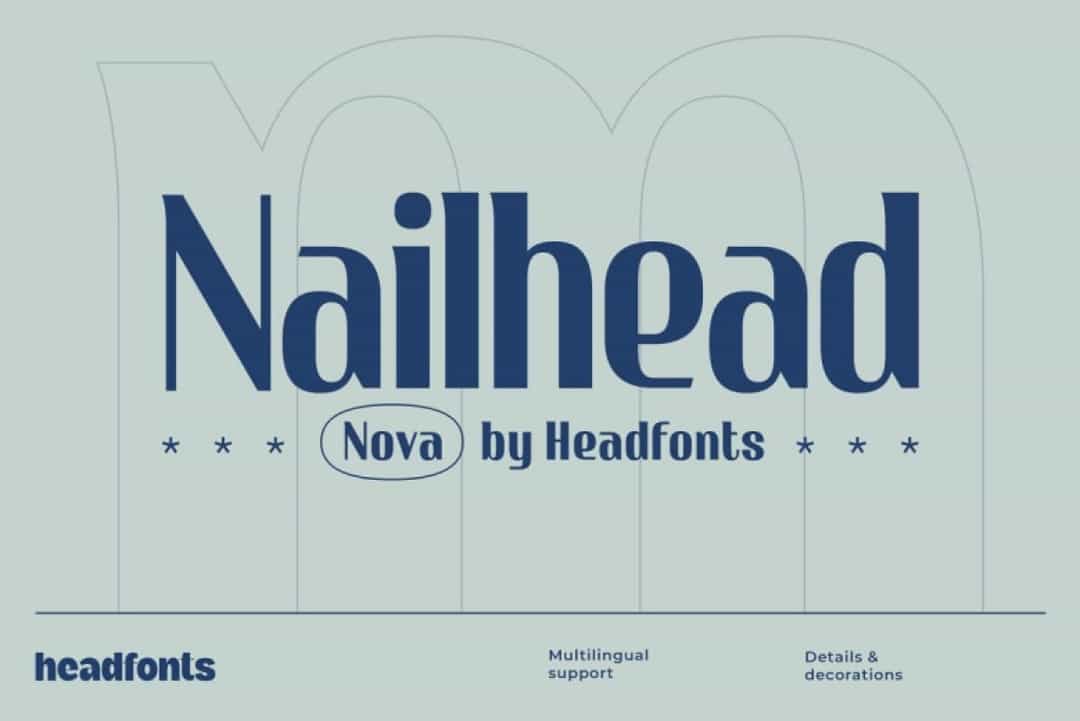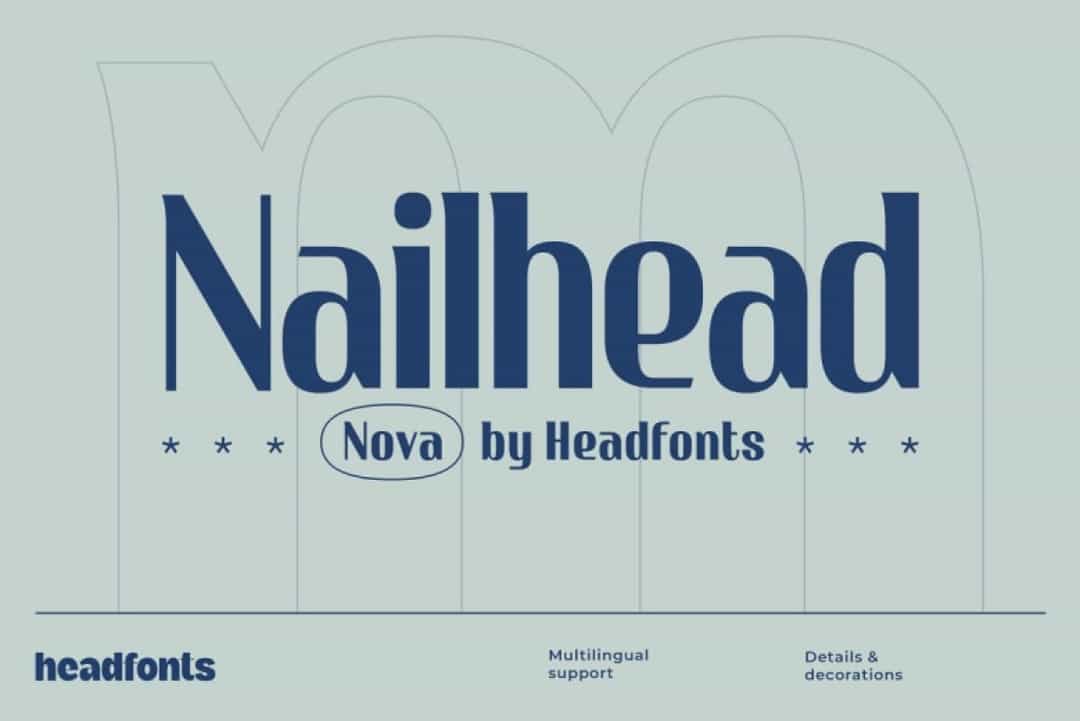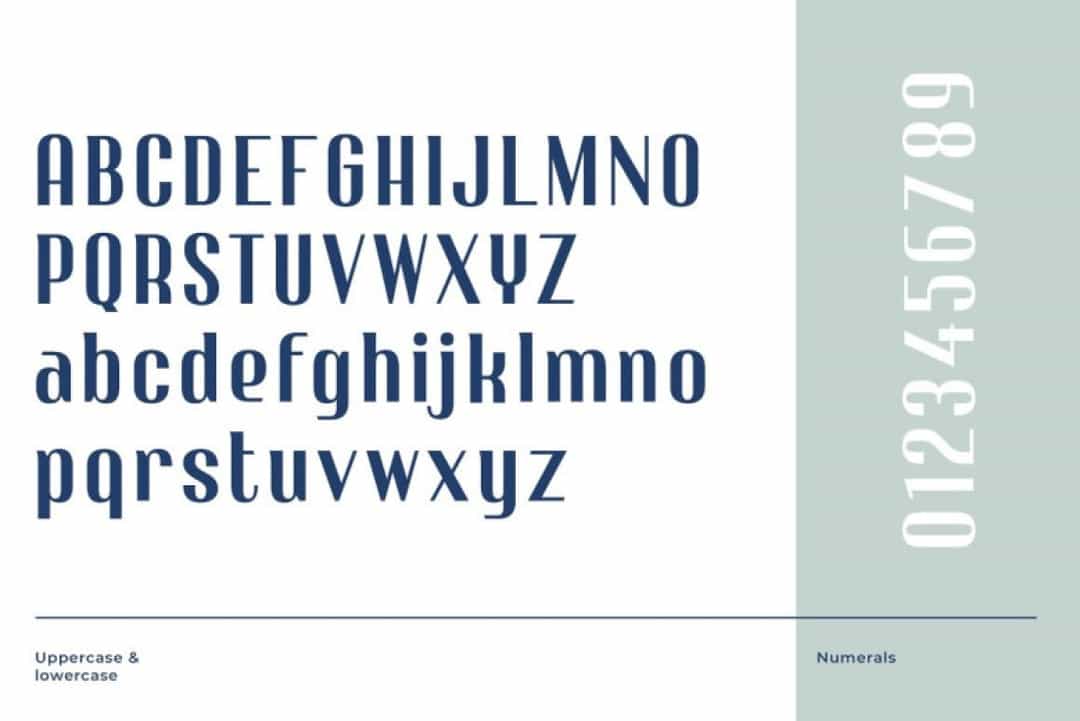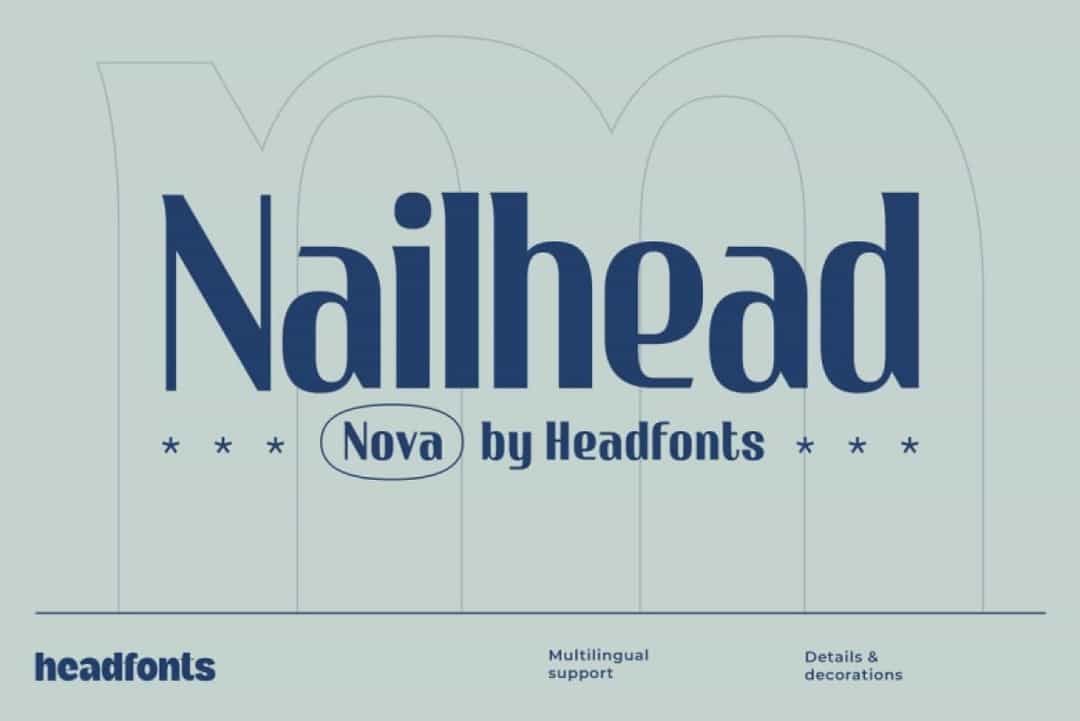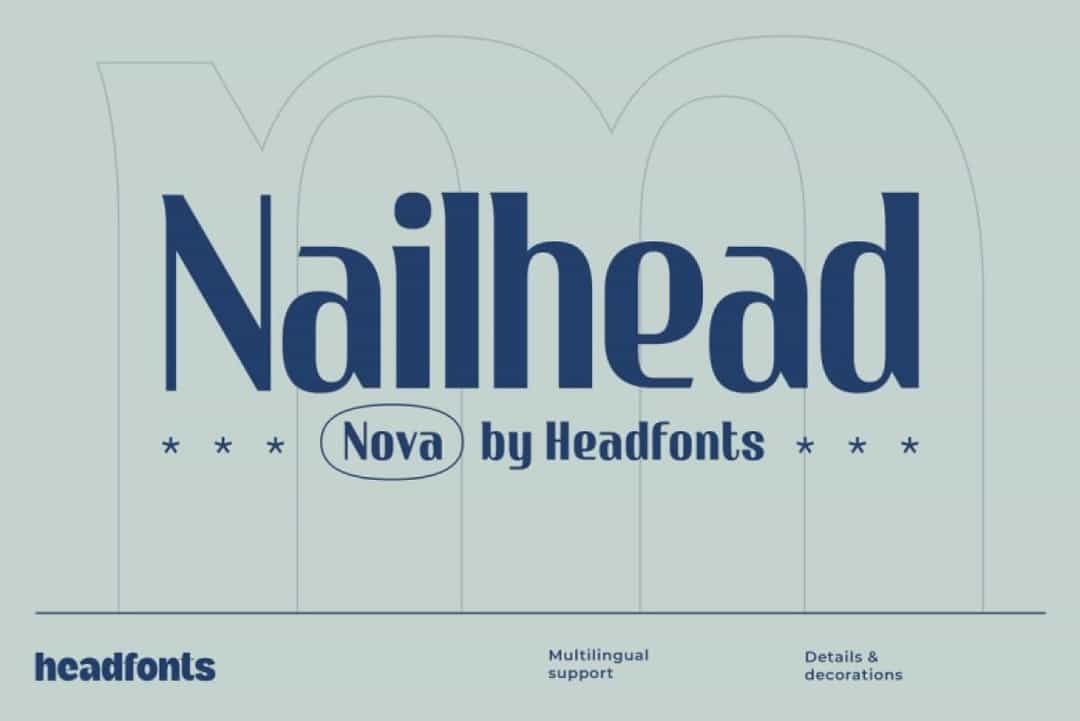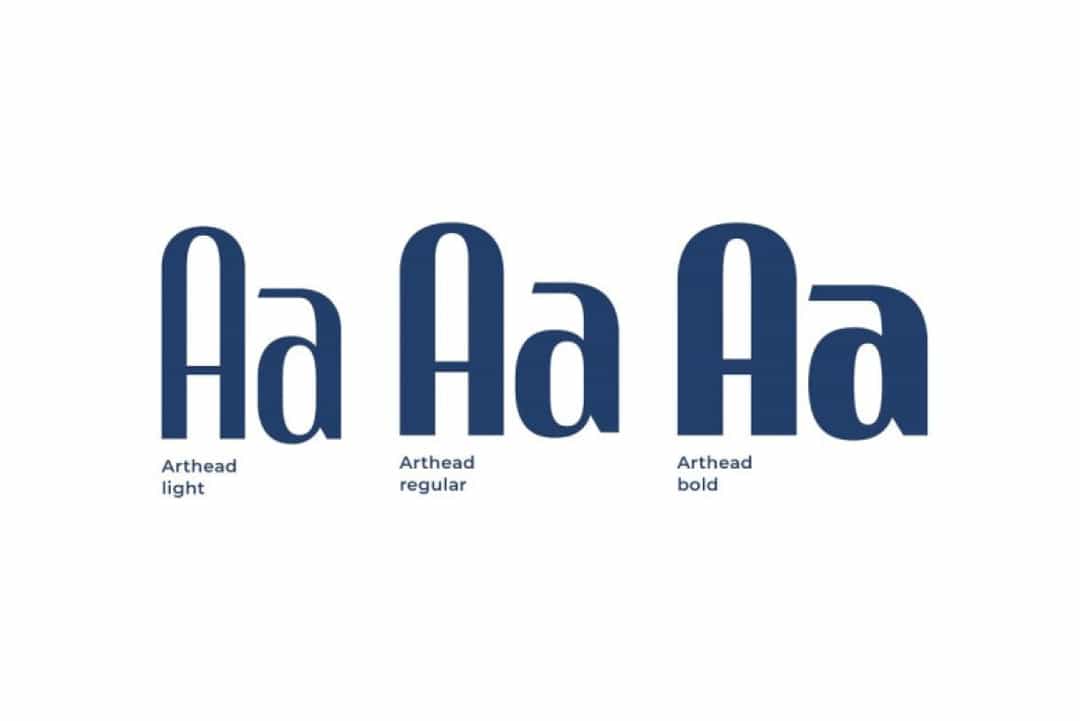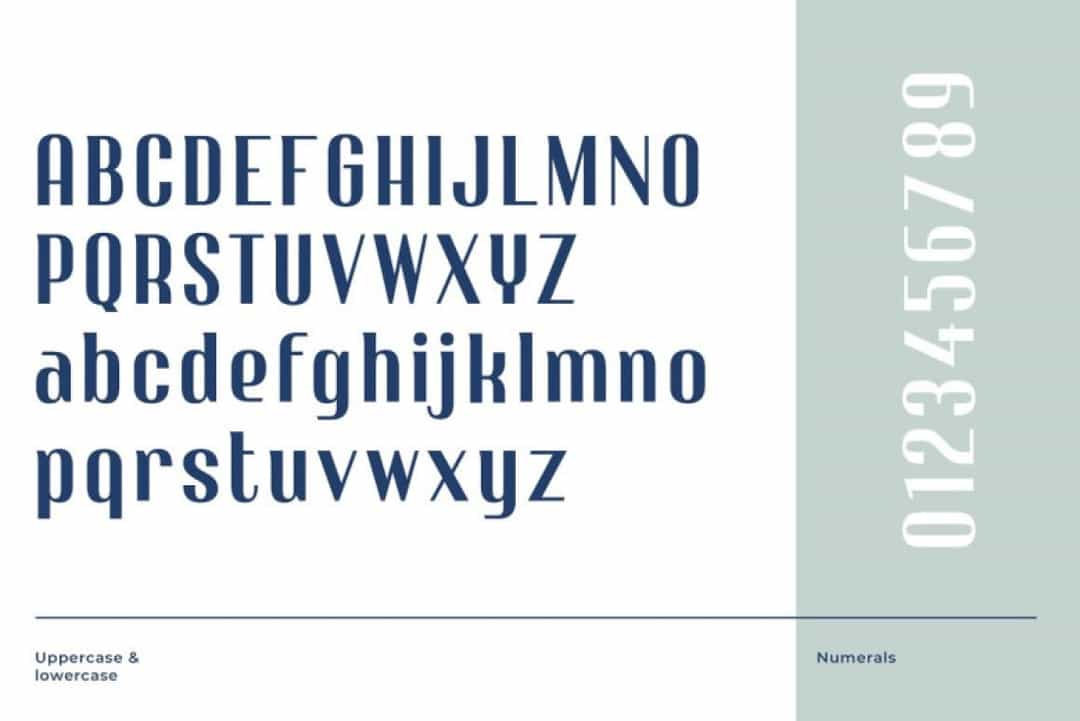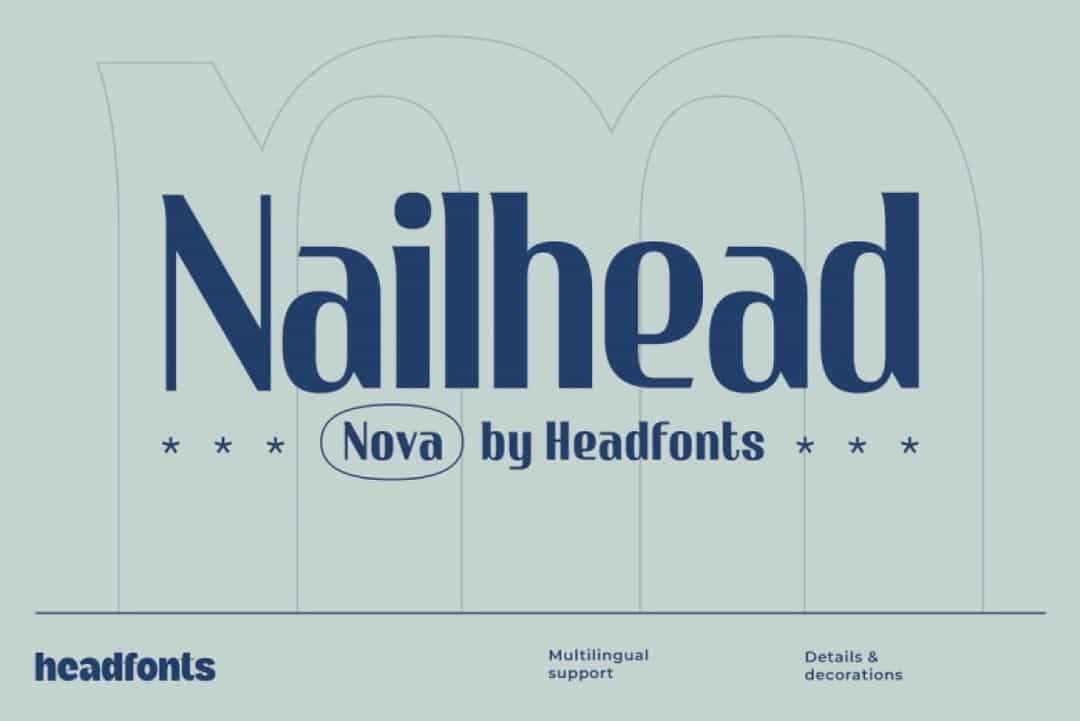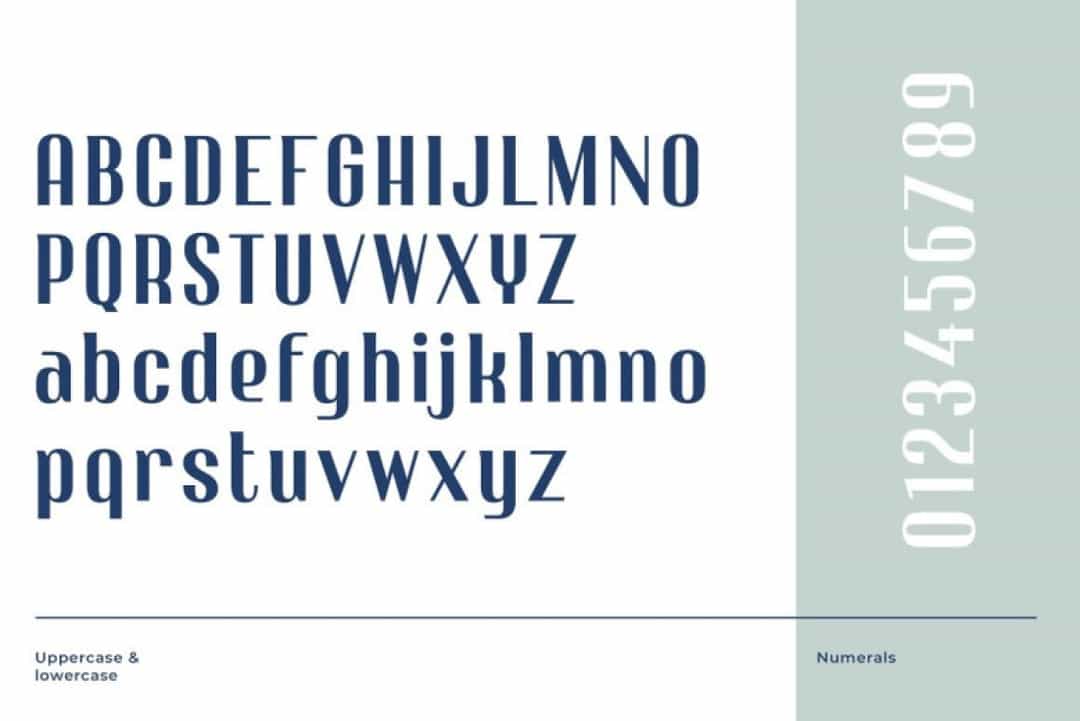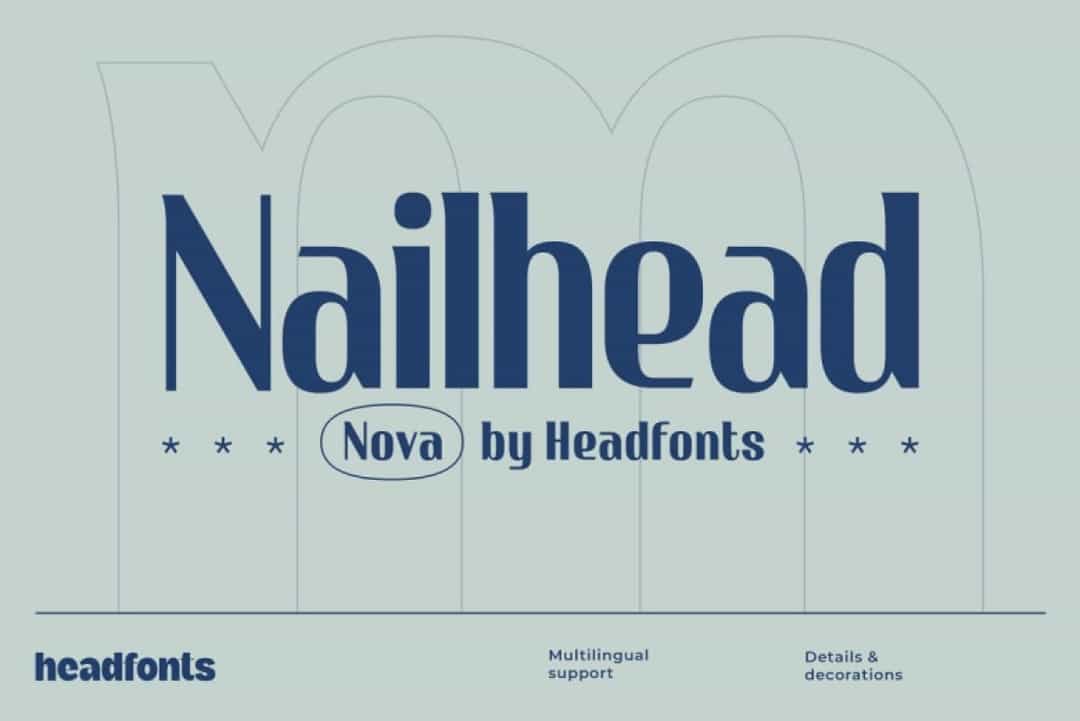
Nailhead Font
NAILHEAD NOVA is our latest version of Nailhead font and will add two extra weights, giving it three total. Additionally, this design embodies style, flexibility and contrast between vertical and horizontal lines for greater Latin script compatibility.